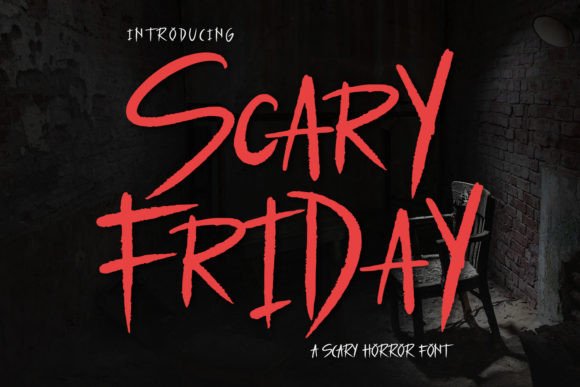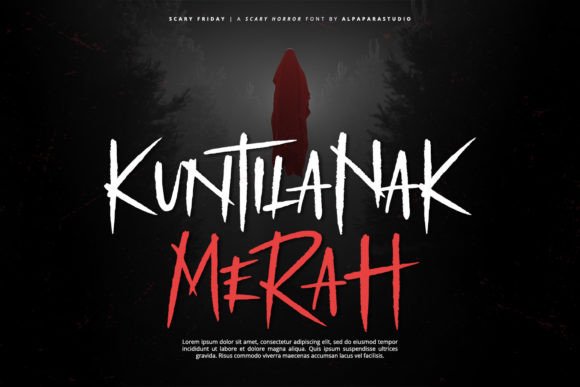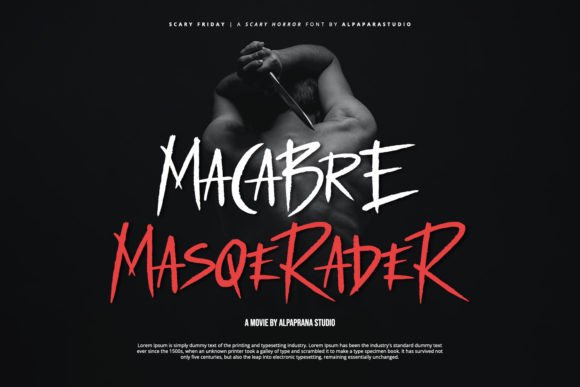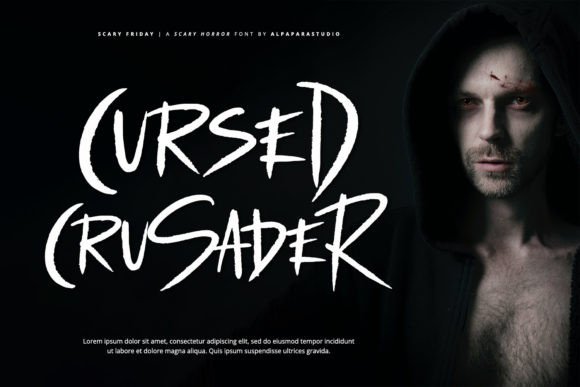
Scary Friday Font: Creepy Display Font for Halloween & Horror Designs
About the Scary Friday Font
Introducing the Scary Friday Font, a beautifully crafted typeface designed to elevate your creative projects. Scary Friday is a stunning horror display font with a modern feel. It will be perfectly used for Branding, Logo Design, Lettering, Logotype, Clothing, Poster, magazine, packaging, posters, shopping bags, t-shirts, book covers, photography, special events, and other design projects.